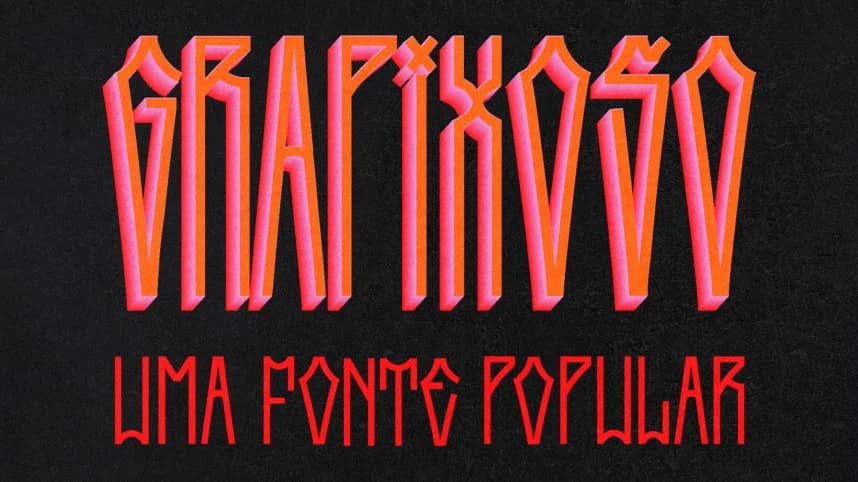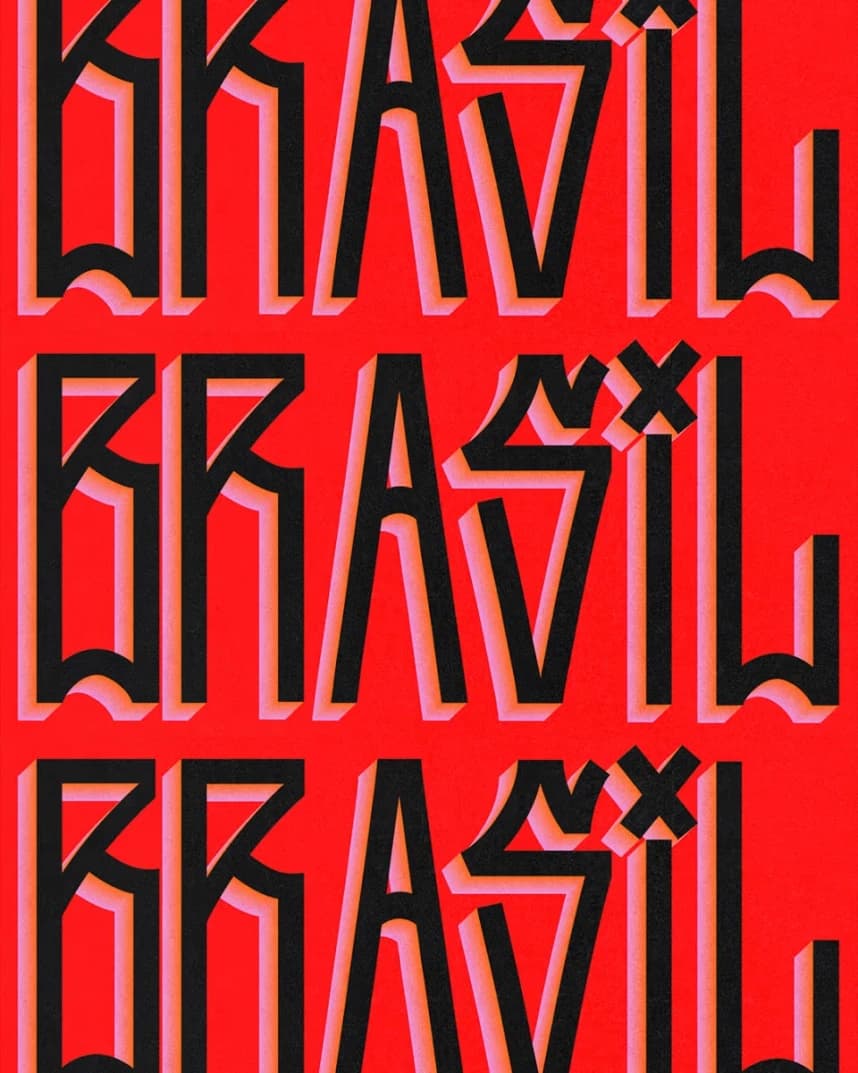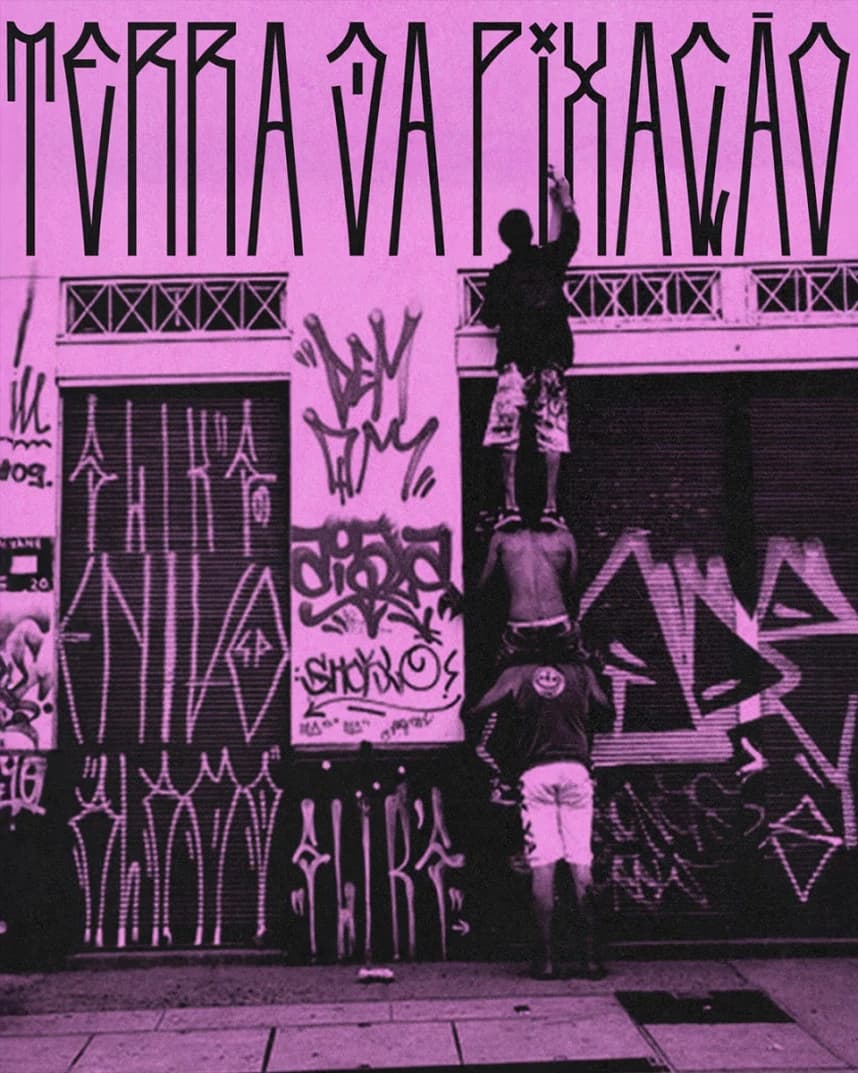
Grapixoso Font
Grapixoso Font is a typeface that celebrates the most prevalent vernacular typography in our cities: pixação. A transgressive and entirely Brazilian style of writing. It doesn’t ask for permission, nor does it try to be pleasant, legible, or easily digestible.
Grapixoso
Grapixoso Condensada
Grapixoso Regular
Grapixoso Cubica